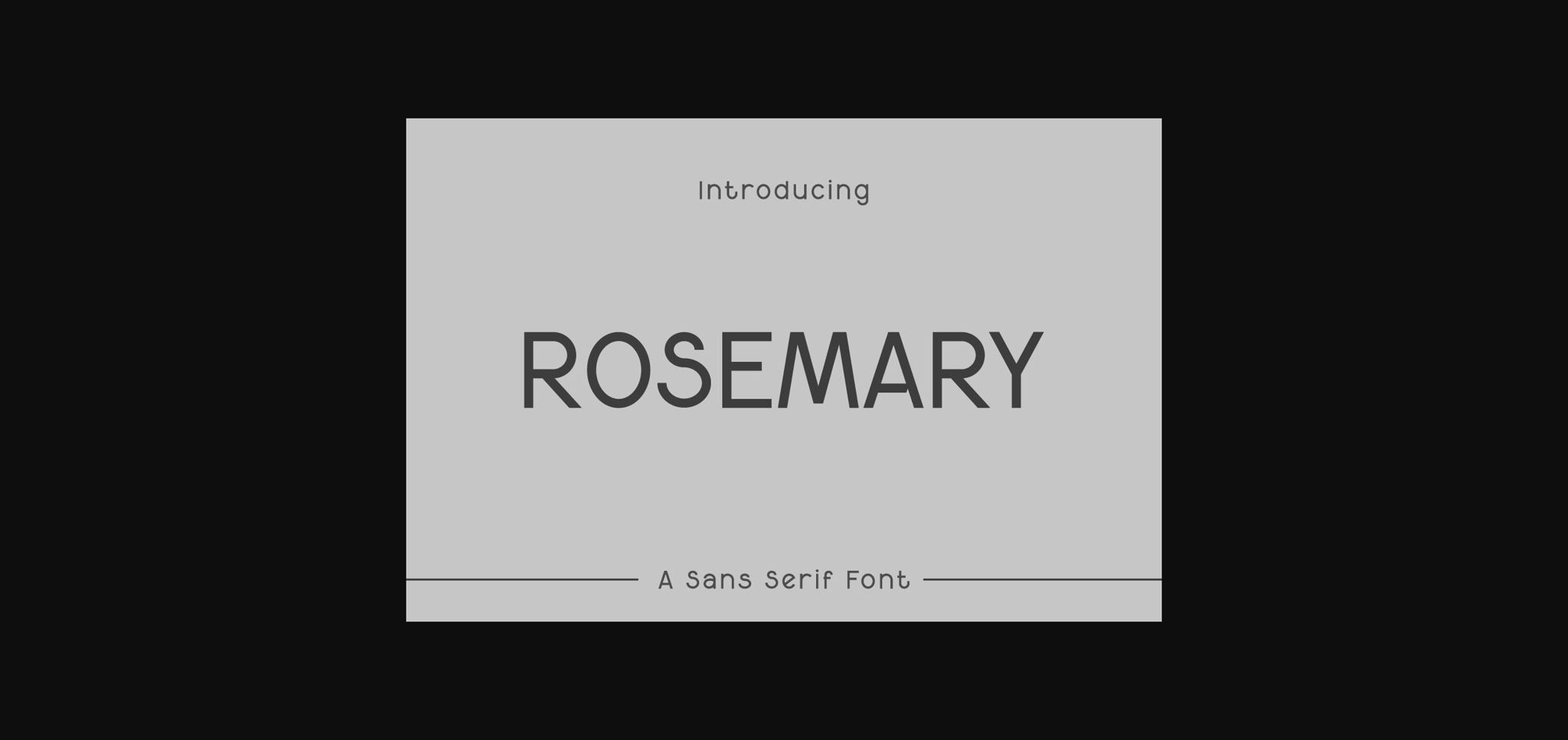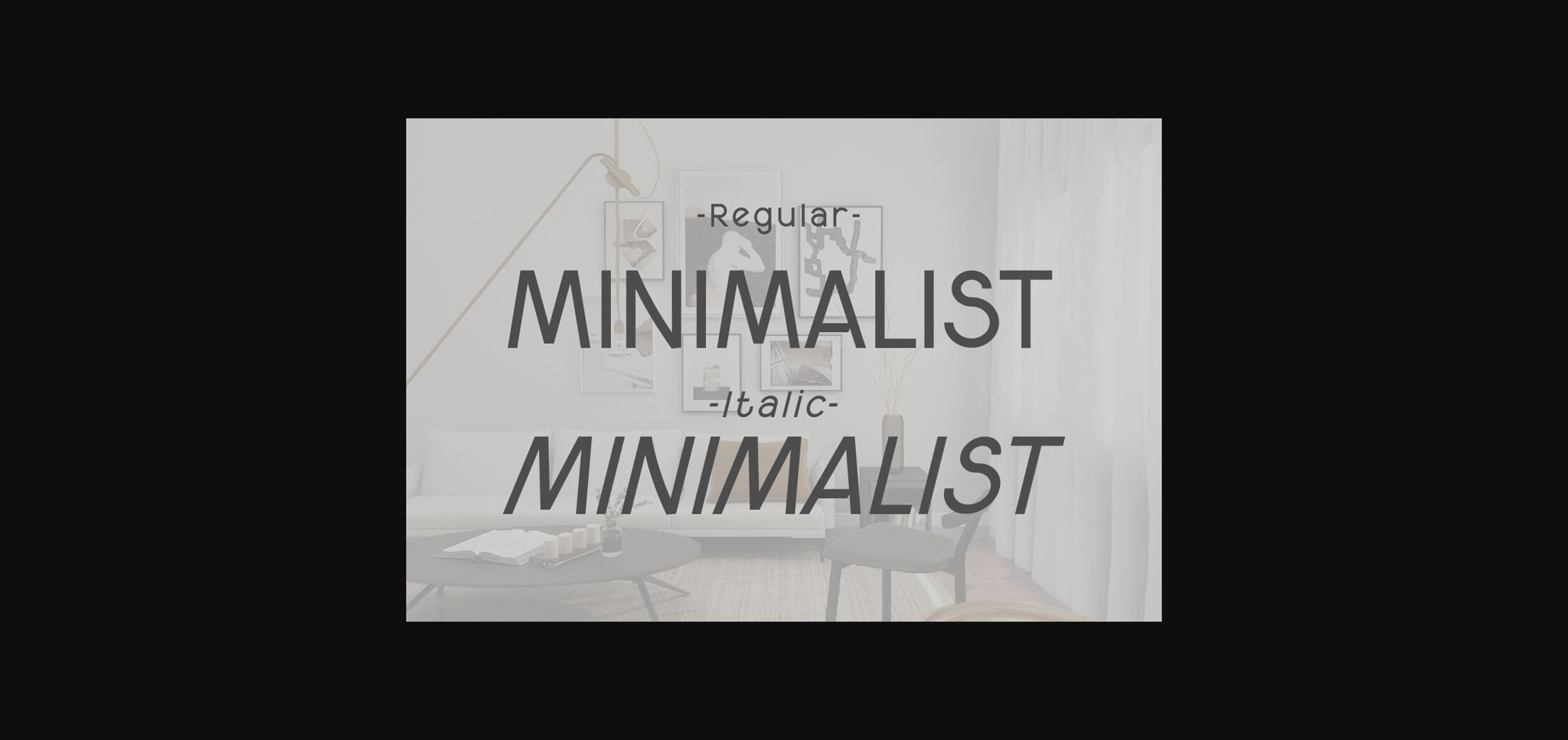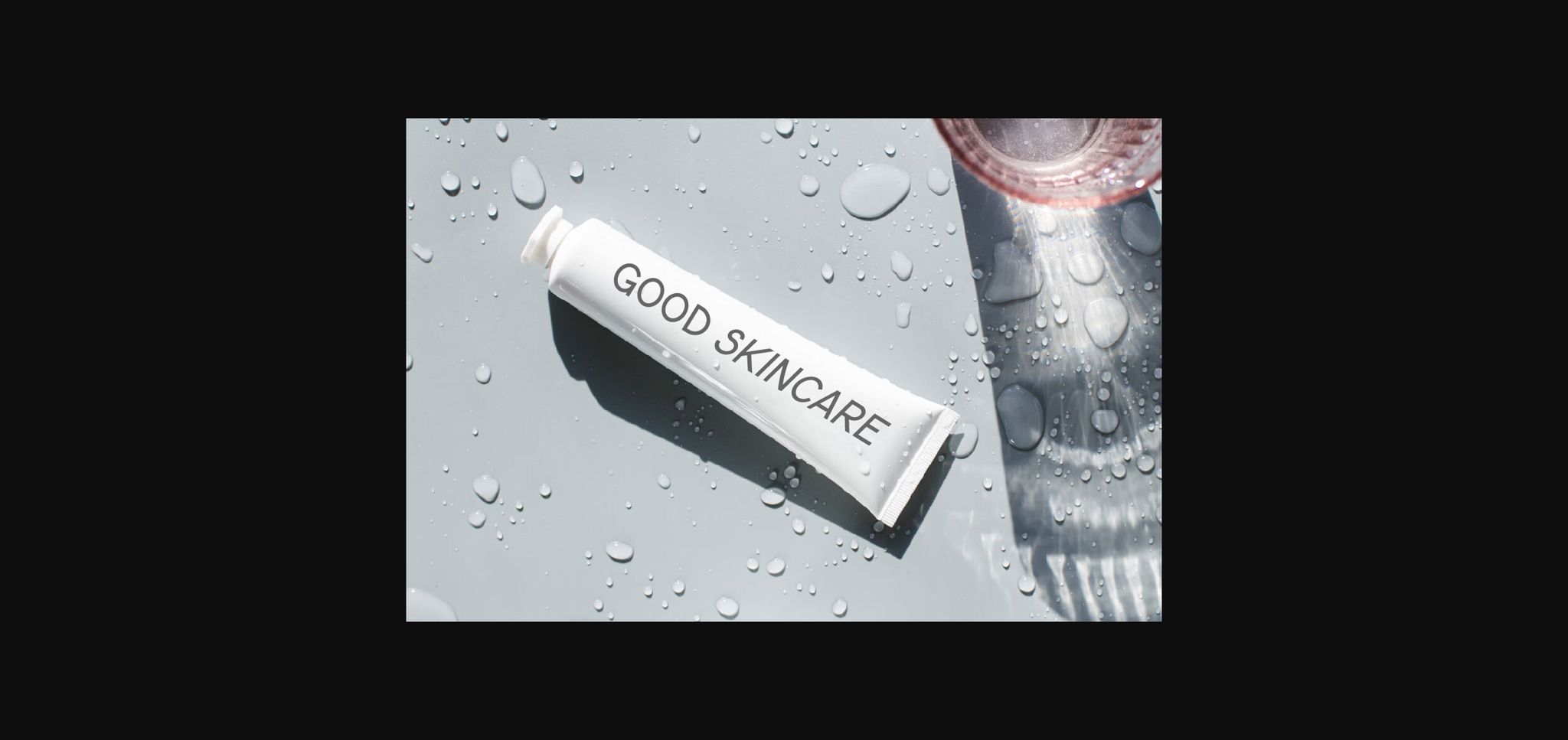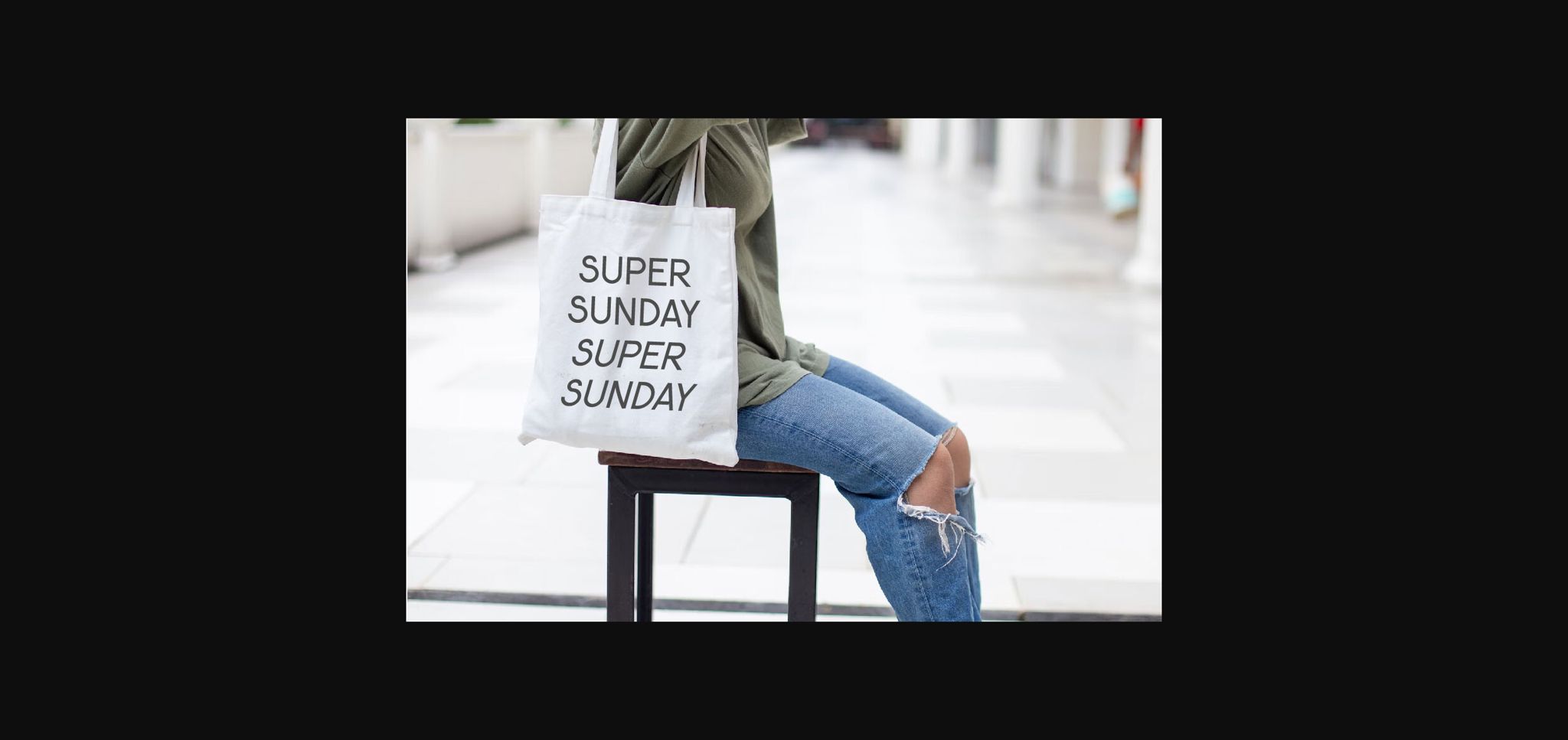
About Rosemary Font
Rosemary is an elegant and versatile sans-serif font that will make your typography truly unique. This font is perfect for branding projects, skincare products, headlines, tote bags, quotes, t-shirt designs, home-ware designs, product packaging, magazine covers, logos, branding– or simply as a stylish text overlay to any background image.